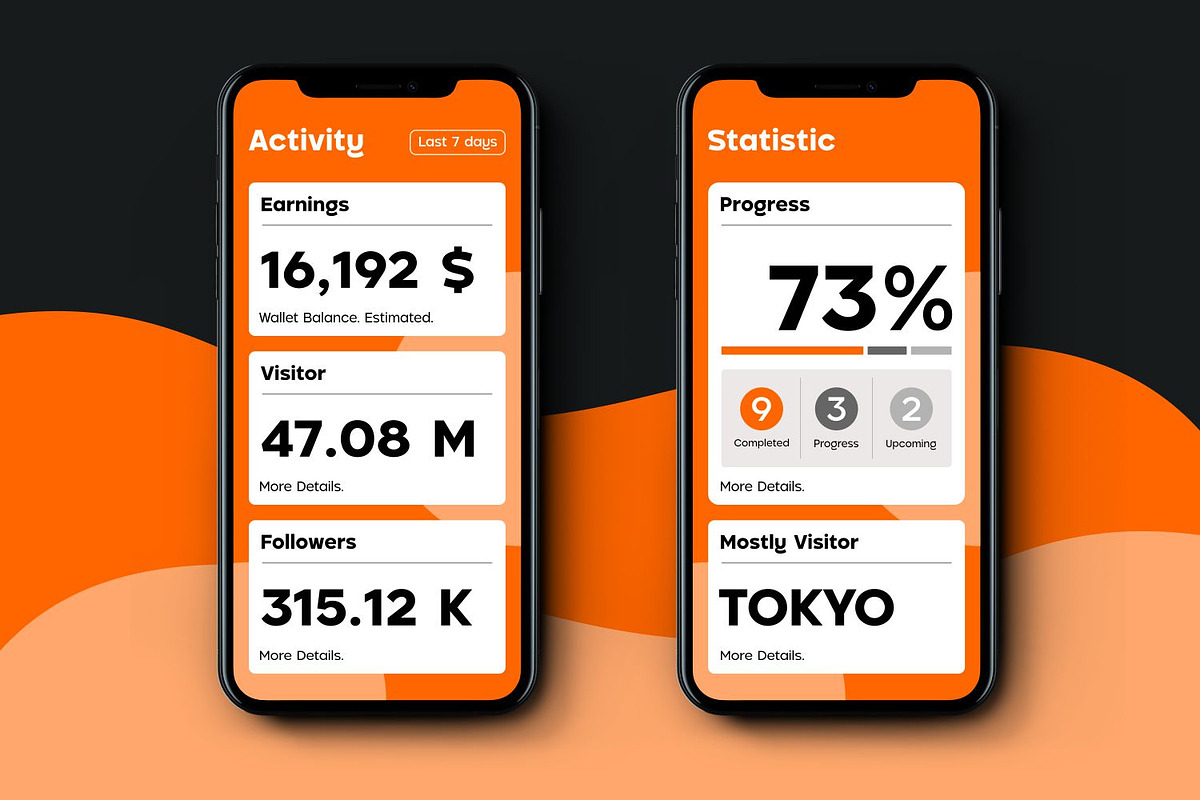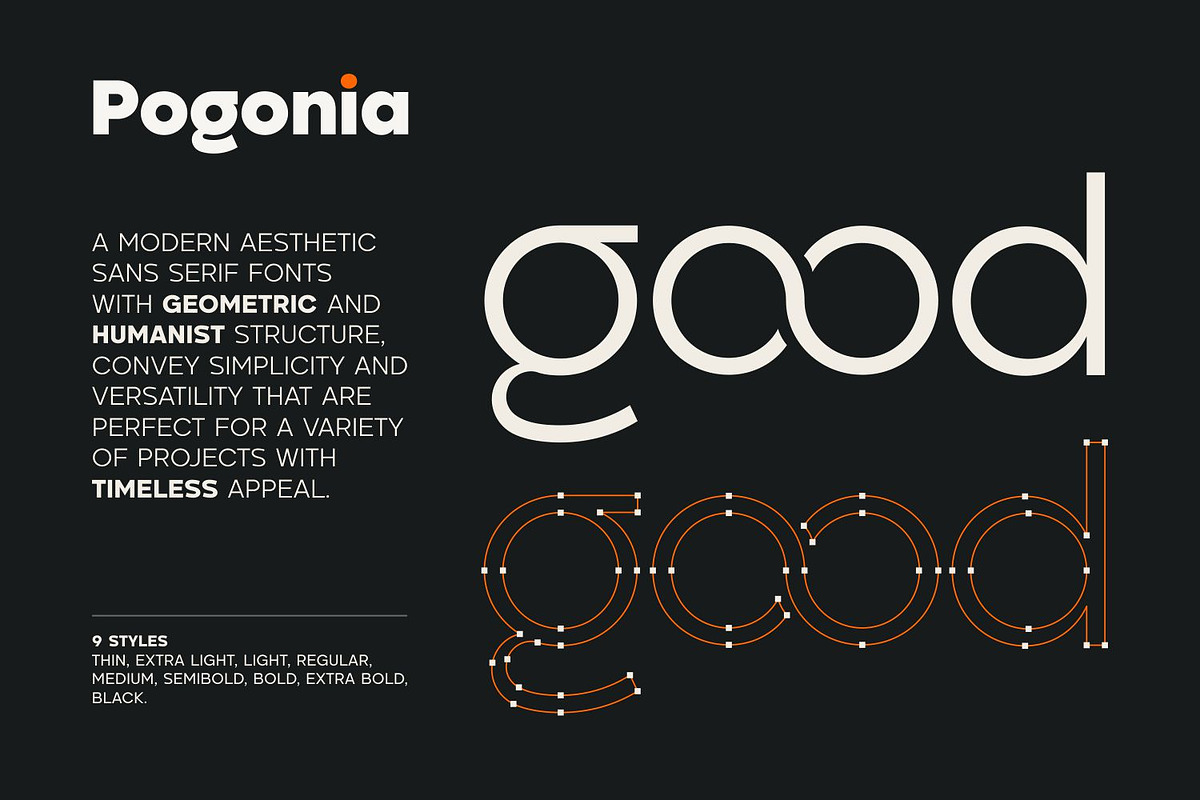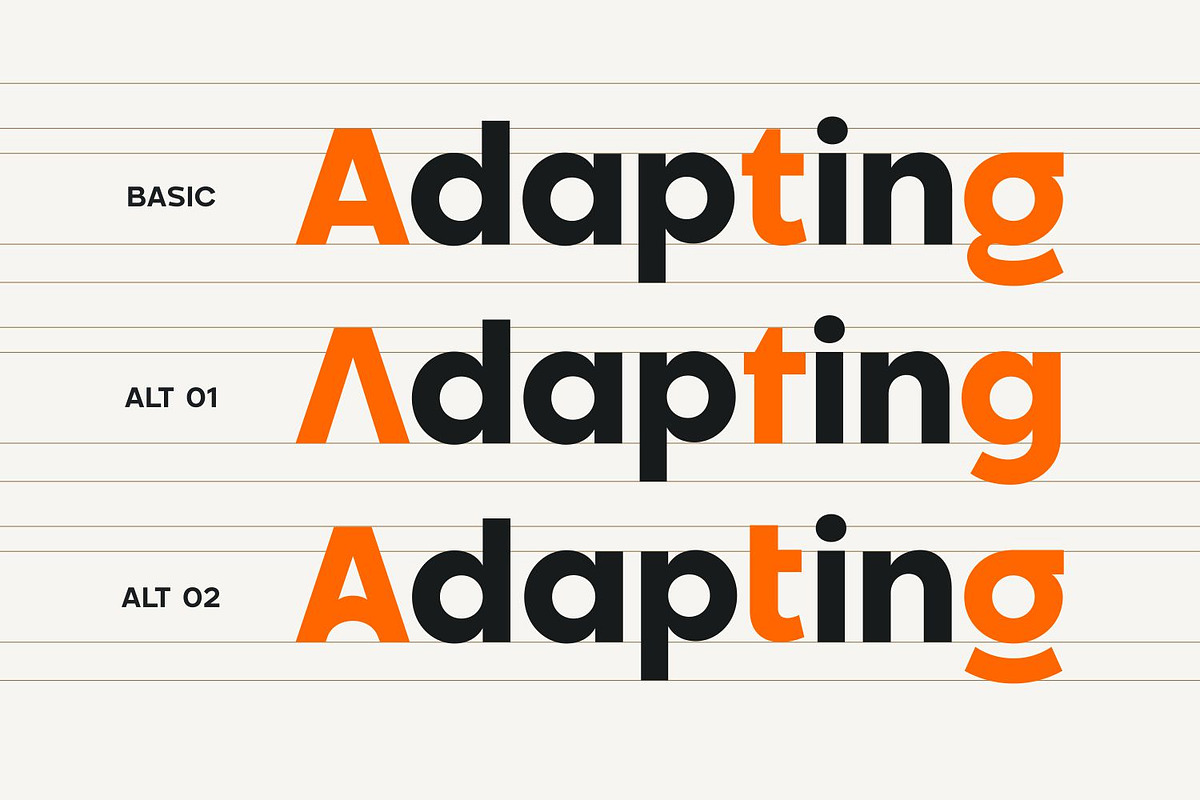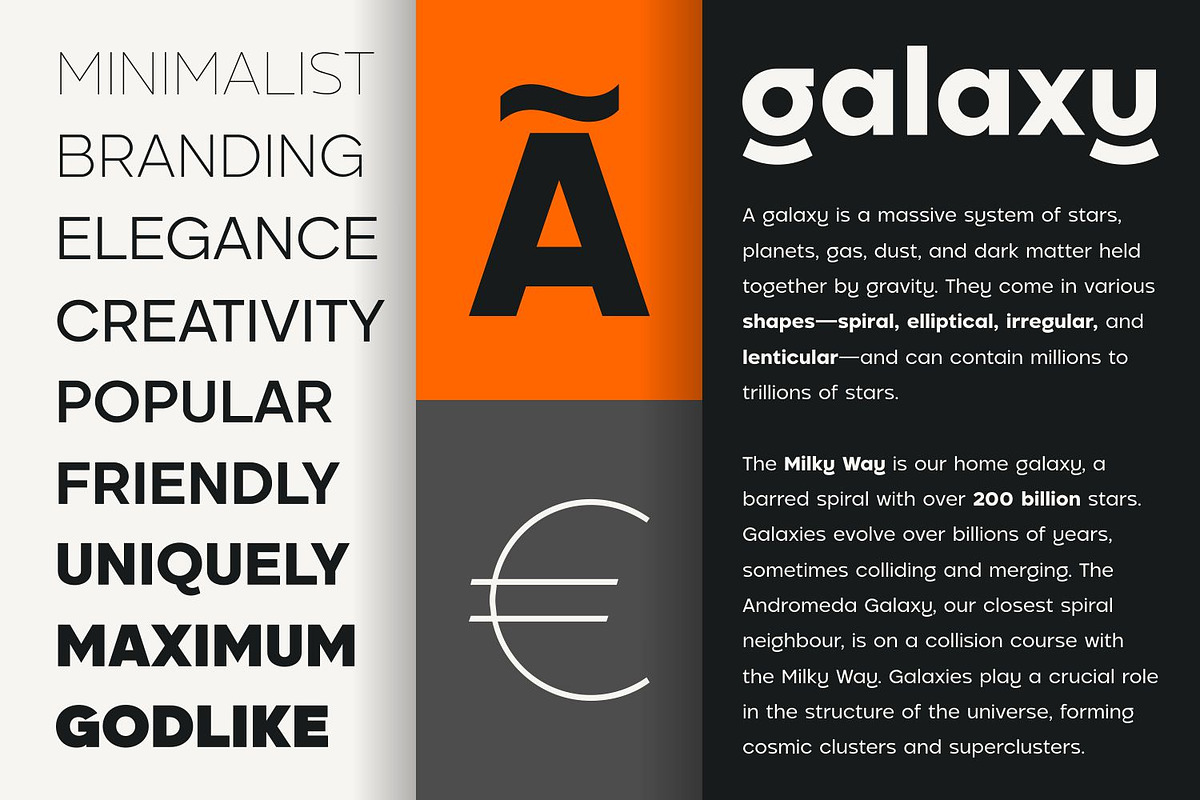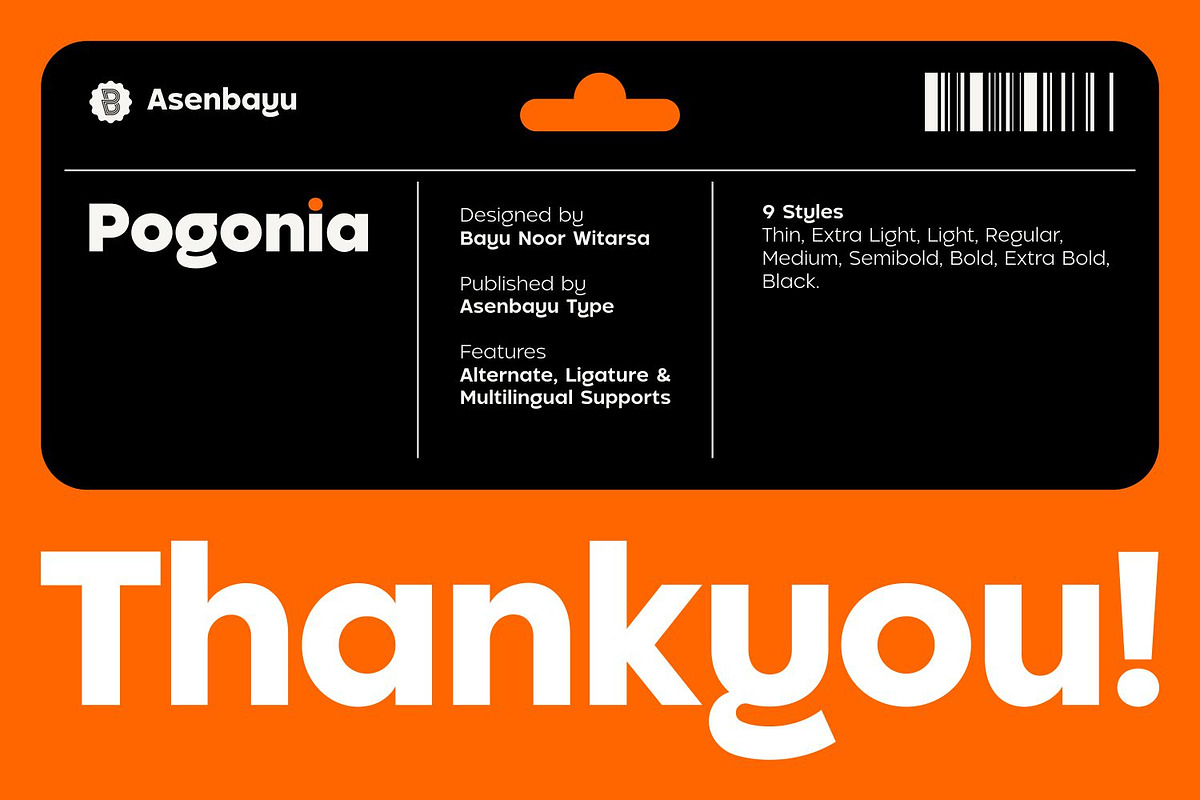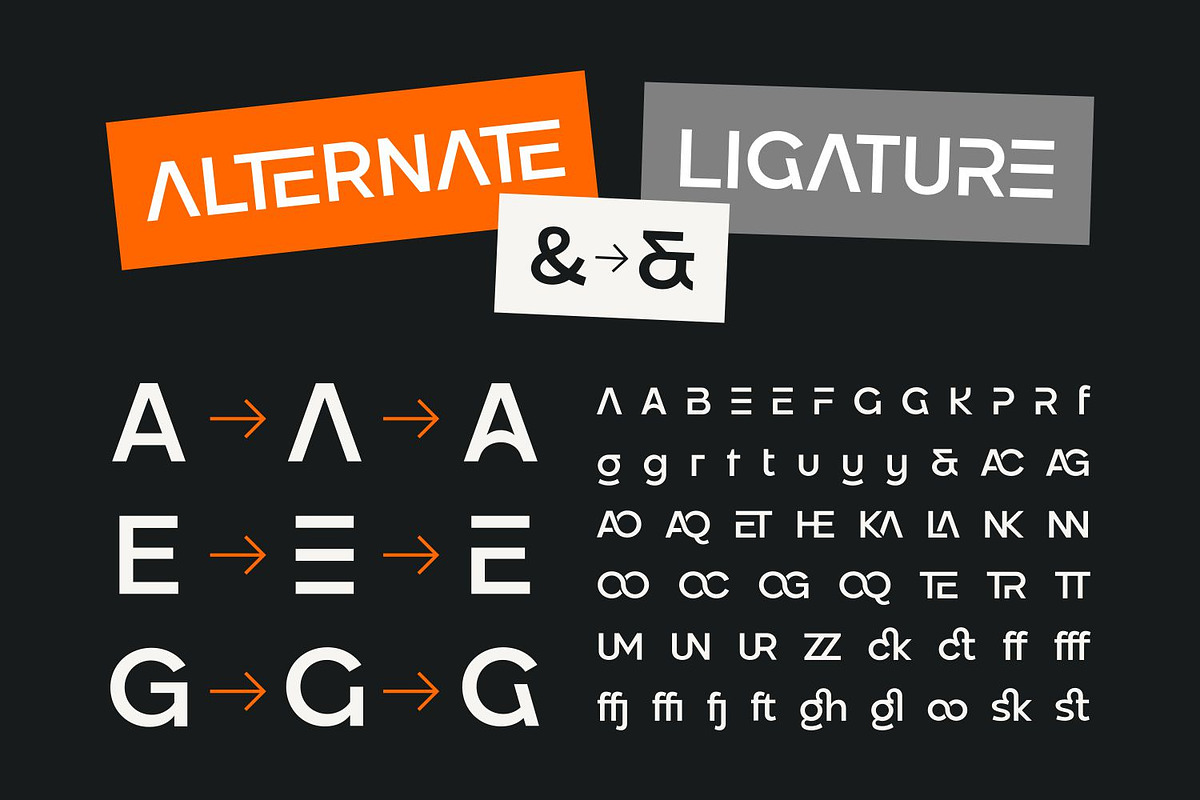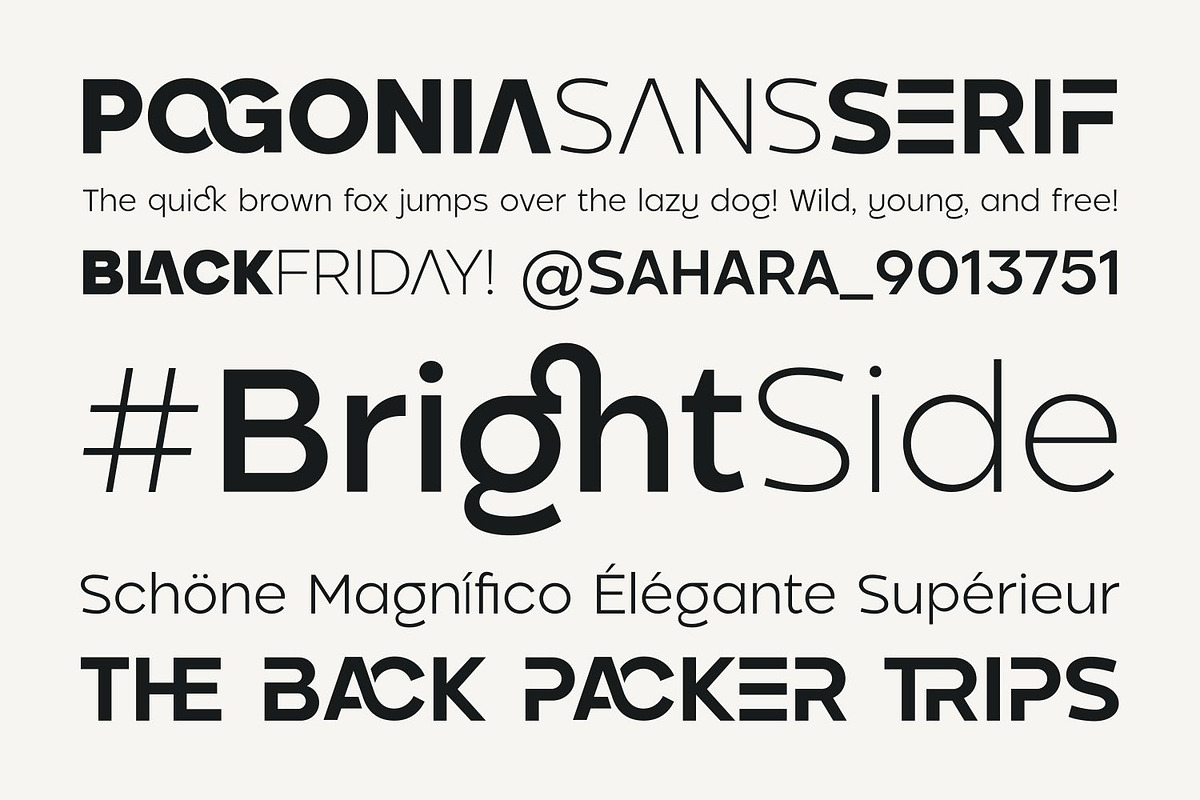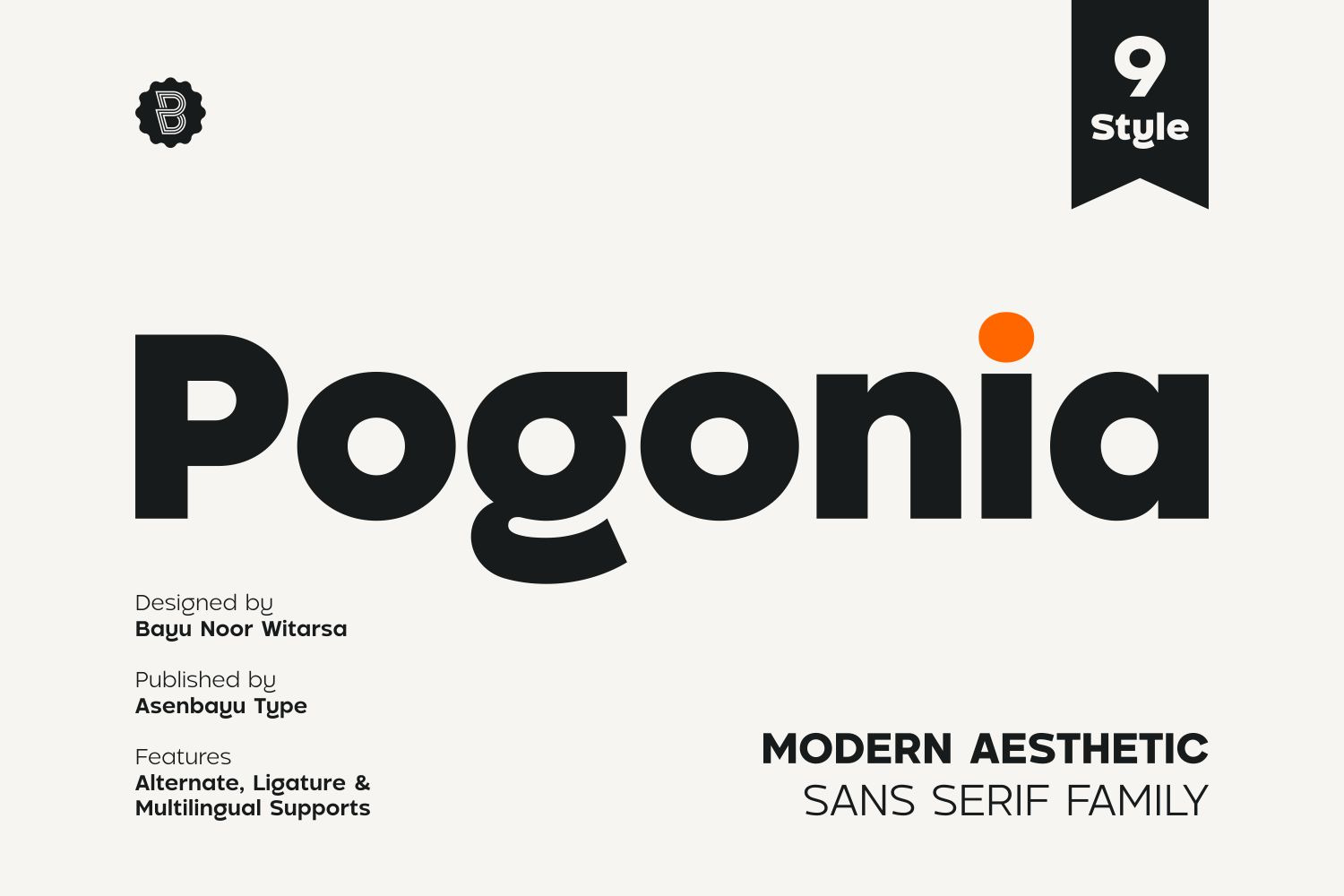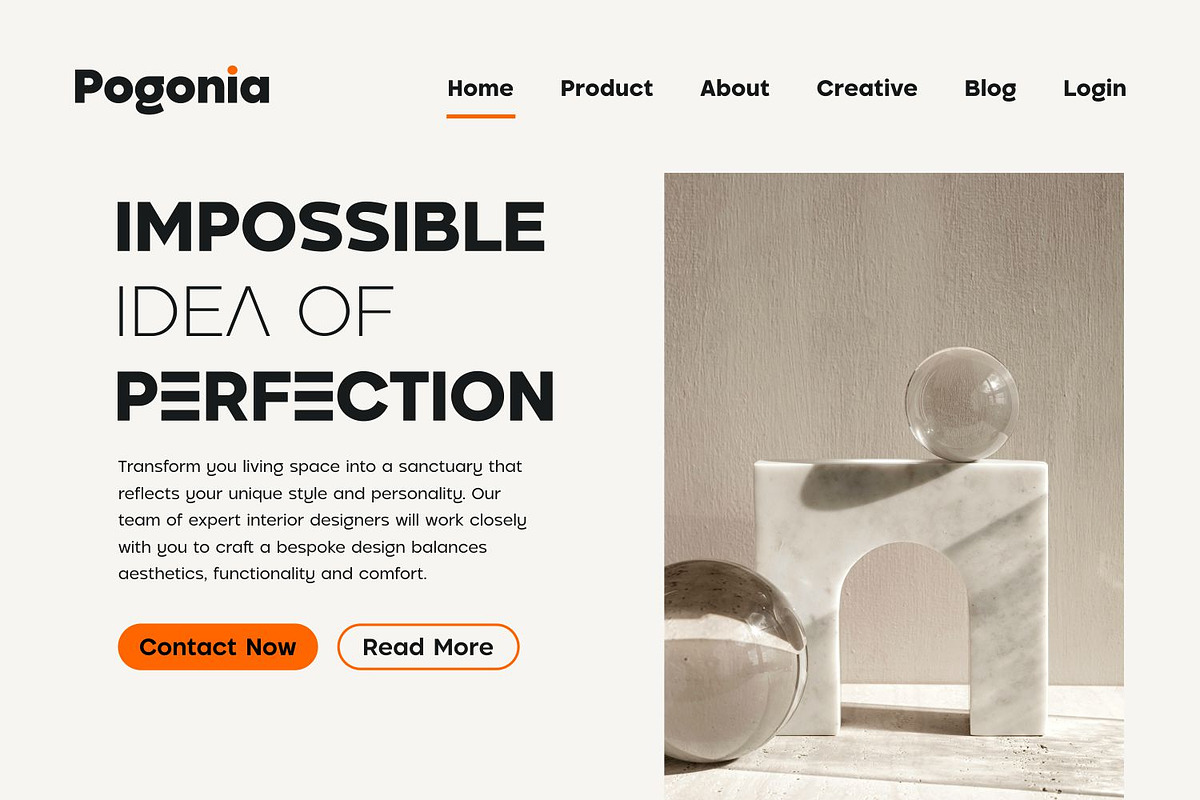
Pogonia - Modern Font Family
Pogonia is a modern aesthetic sans serif fonts with geometric and humanist structure, convey simplicity and versatility that are perfect for a variety of projects with timeless appeal. Use it to convey desired logo designs, attractive posters, social media designs, fashion and websites.
Pogonia Font Features:
- 9 Fonts (Thin to Black)
- Standard glyph
- Stylistic Alternates & Stylistic Ligatures
- Symbol & Punctuation
- Multiple Languages Supported.